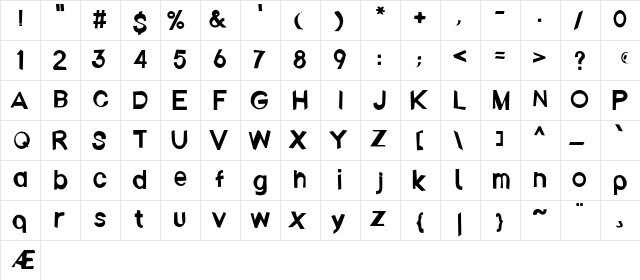
Ember Regular
| Foundry | Cannot Into Space Fonts |
| Designer | Stig |
Design Context for Ember Typeface
Ember offers clean, dependable letterforms without strong stylistic allegiance, making it a practical choice for designers who need flexibility.